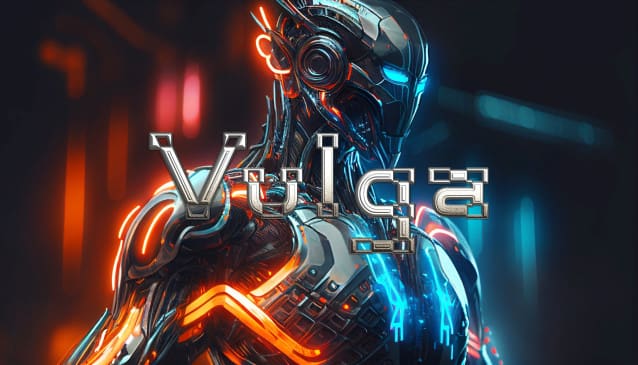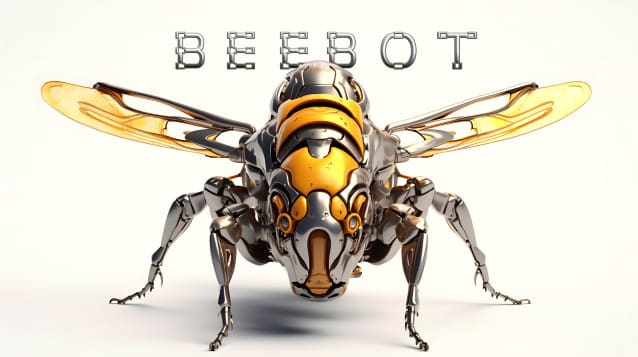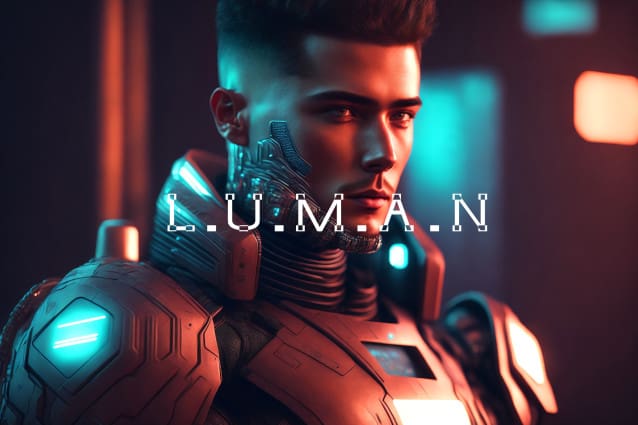
Trembx Z Font
Trembx Z Font, It would be a perfect choice to design posters, affiches, logos, t-shirt and magazine prints, eye-pleasing typographic designs and more.